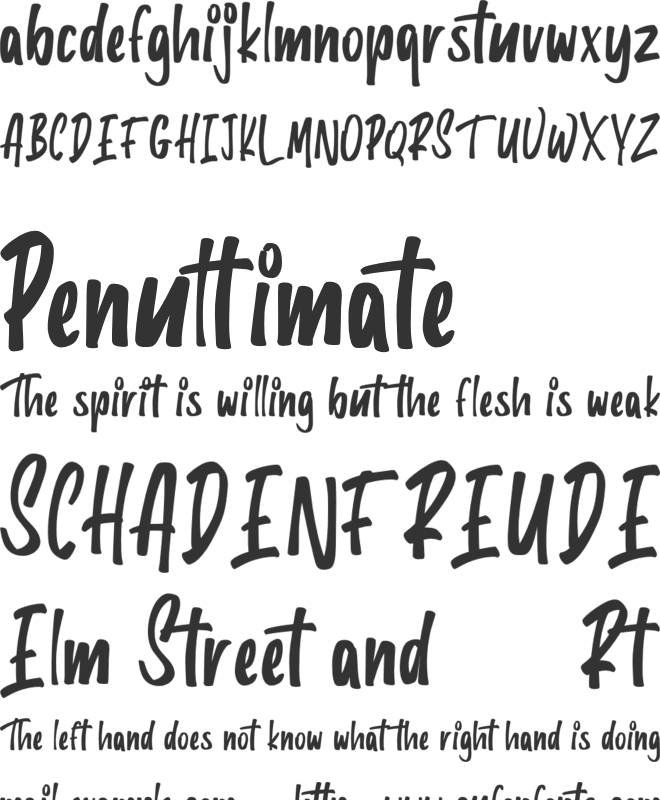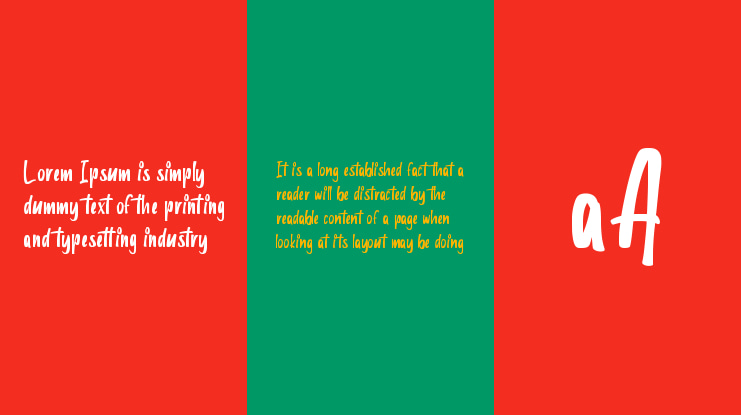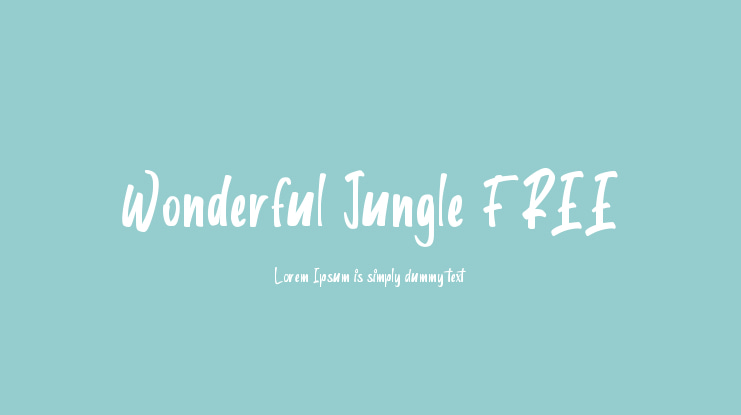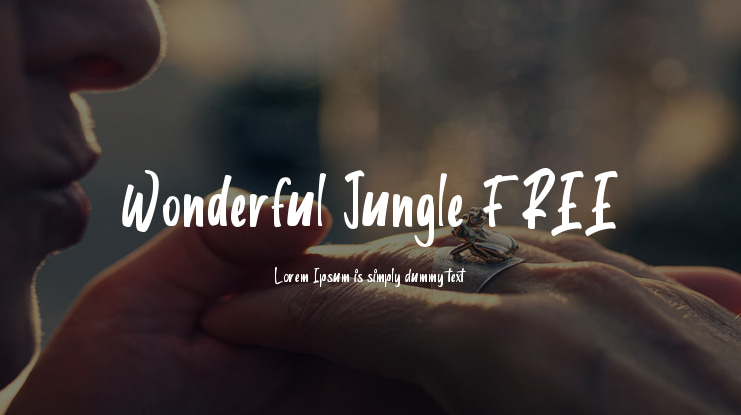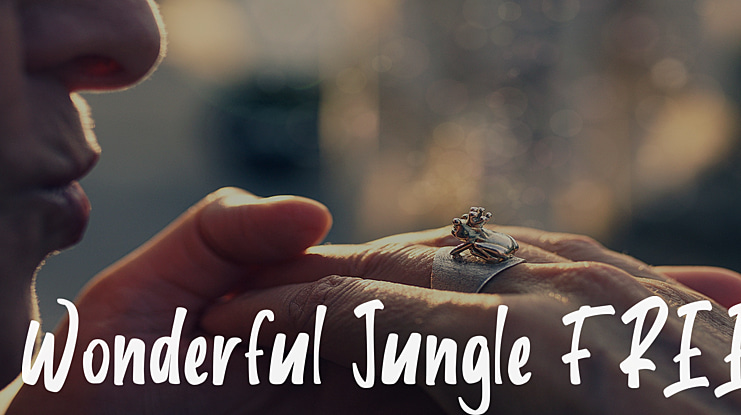
Wonderful Jungle FREE Font
"Wonderful Jungle" is a font display is made by hand, inspired by classic posters.comes with uppercase, lowercase, numerals, punctuations and so many variations on each character include OpenType alternates, common ligatures and also additional swash to let you customize your designs. Perfect to use for Logotype, Letterhead, Poster, Apparel Design, Label and etc.THIS IS DEMO VERSION. Support us with buy commercial use license!For Commercial Use, grab it fast on this linkhttps://www.creativefabrica.com/designer/inspiratype/ref/238082Any question, drop me email to  Thanks